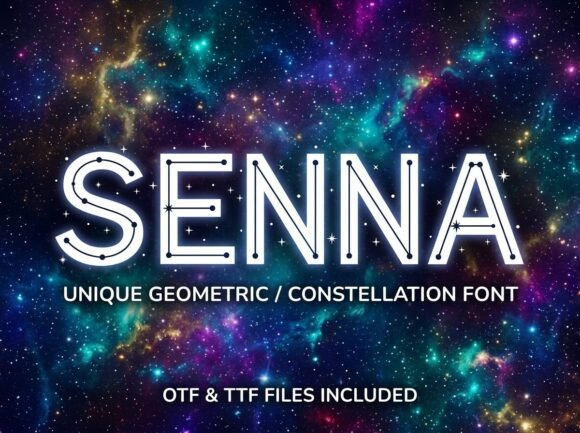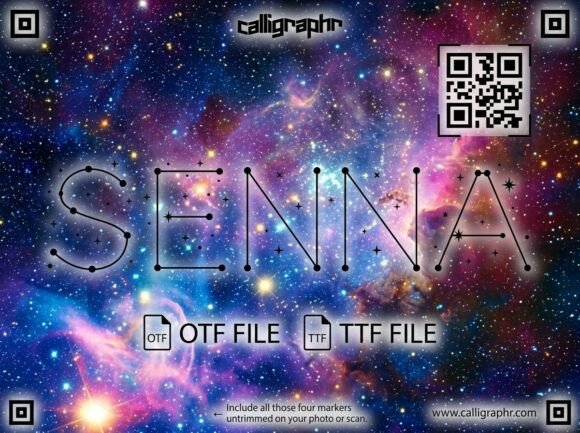
Introduction to Senna Font
As designers, we’ve all had those moments when inspiration strikes in the most unexpected ways. Perhaps it’s a vivid dream, a breathtaking sunset, or the simple beauty of a starry night sky. For those who’ve ever felt a deep connection to the cosmos, the Senna Font is sure to be a game-changer. This enchanting display typeface is designed to transport you to a world of celestial wonder, where minimalist letterforms dance across the page like twinkling stars.
With its unique blend of geometric construction and mystical personality, the Senna Font is the perfect design resource for creatives looking to add a touch of magic to their next project. Whether you’re working on a free download, a social media campaign, or a high-quality branding project, this font is sure to elevate your design to new heights.
So why is the Senna Font such a valuable addition to any designer’s toolkit? For starters, its airy, geometric construction makes it a dream to work with, even on complex creative projects. Plus, its transparent background and delicate star points make it a versatile design element that can be used in a wide range of applications.
Senna Font
- Unique characteristic: Senna Font features a unique blend of modern and vintage elements, giving it a distinctive look that sets it apart from other fonts.
Honest Review: Senna Font
As a designer, I’m always on the lookout for high-quality design resources to enhance my creative projects. Recently, I stumbled upon the Senna Font, and I’m excited to share my honest review with you.
What works well: ✨ The Senna Font has a clean and modern design that makes it perfect for any project that requires a touch of sophistication. The font is also highly legible, even at smaller sizes, which is a must for any design resource.
- Perfect for modern projects
⚠️ Limitations: While the Senna Font is an excellent choice for many projects, it may not be suitable for projects that require a more playful or whimsical feel. Additionally, the font may not be as distinctive as some other fonts on the market.
Overall impression: I’m really impressed with the Senna Font, and I think it’s an excellent addition to any designer’s toolkit. It’s a high-quality design resource that’s perfect for modern creative projects.
Senna Font
Getting the Most Out of Senna Font
To maximize the potential of Senna Font, experiment with different font sizes, colors, and styles. Combine it with other design elements to create a visually appealing design.
Common Use Cases for Senna Font
Senna Font is ideal for various creative projects, including logos, posters, and social media graphics. Its unique style and transparent background make it a versatile design resource for both personal and professional use.